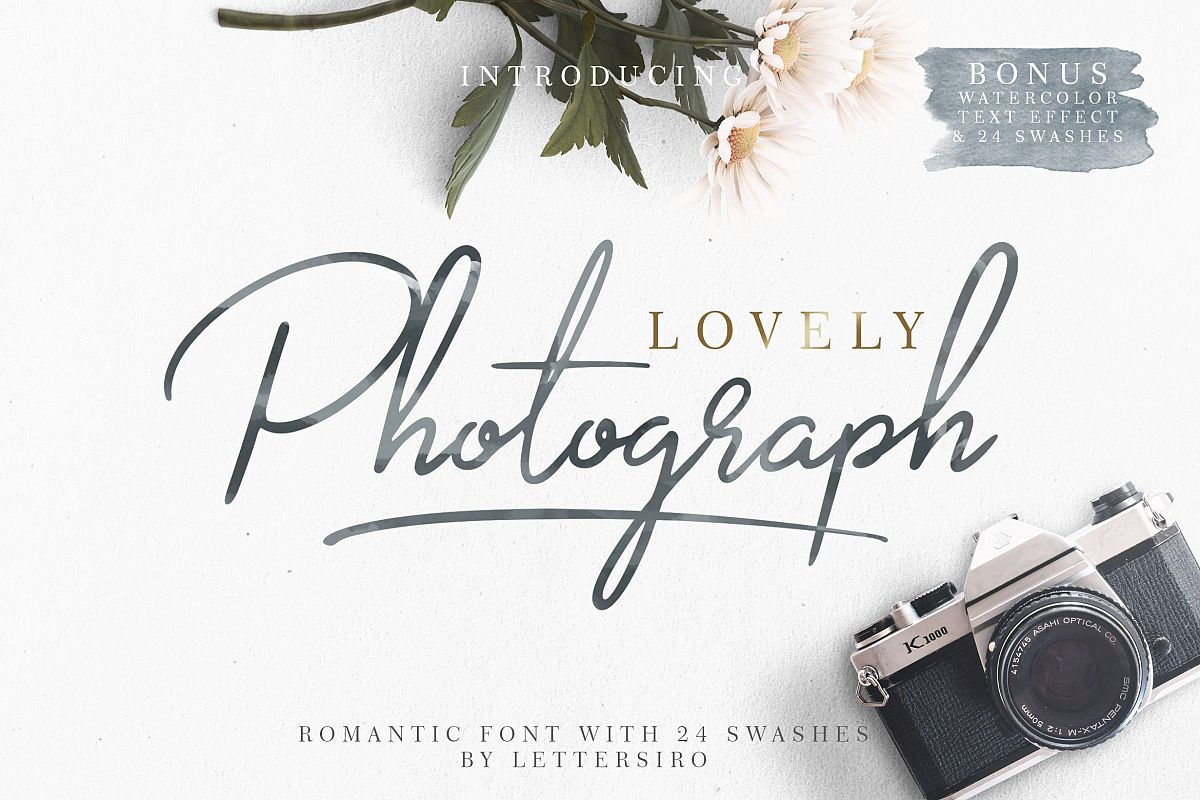
Lovely Photograph is modern handlettered Font.
Comes with two style ; regular and light , also 24 bonus swashes and one
watercolour text effect.
Lovely Photograph is beautiful for magazine, watermark, signature, logo,
business card, logo, clothing, and many many modern design project.
Font Features :
• Stylistic Alternate
• Standar Ligature
• Multilingual support AÀÁÂÃÄÅCÇDÐEÈÉÊËIÌÍÎÏNÑOØÒÓÔÕÖUÙÜÚÛWYÝŸỲŸÆßÞþ